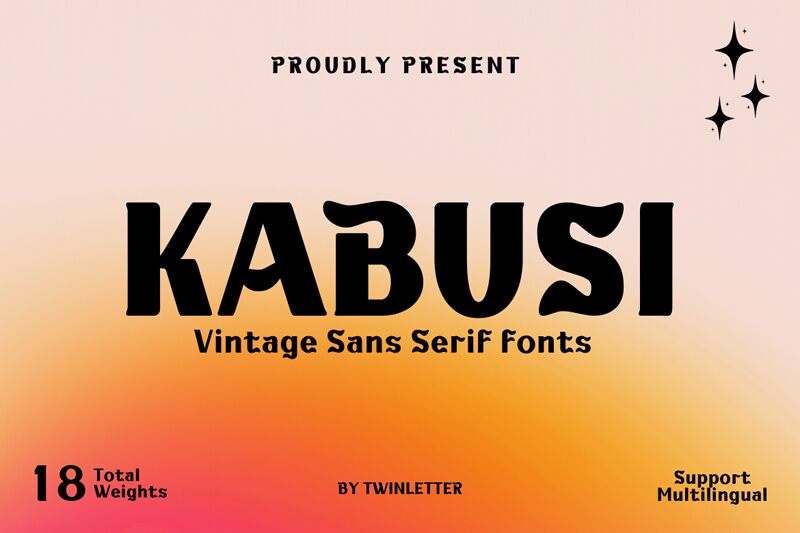
KABUSI-BlackSlanted
KABUSI Black Slanted is a stunning display font from the renowned typeface family, KABUSI. Crafted by twinletter, this vintage-inspired sans serif font boasts an extra-bold weight that exudes confidence and elegance. Its slanted style adds a touch of modernity to its classic appeal.
Perfect for various creative projects, KABUSI Black Slanted is ideal for branding designs, editorial layouts, packaging designs, and poster creations. With its bold presence and distinct aesthetic, this font will surely captivate your audience and elevate the visual impact of your projects to new heights.